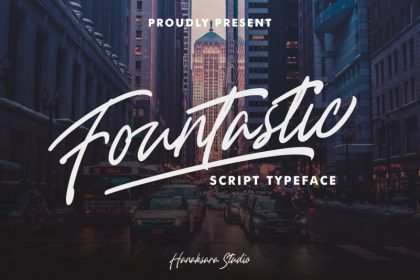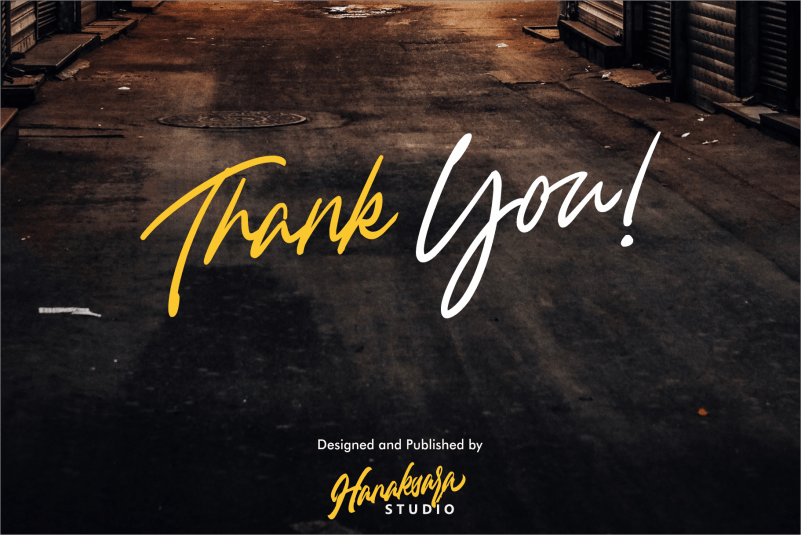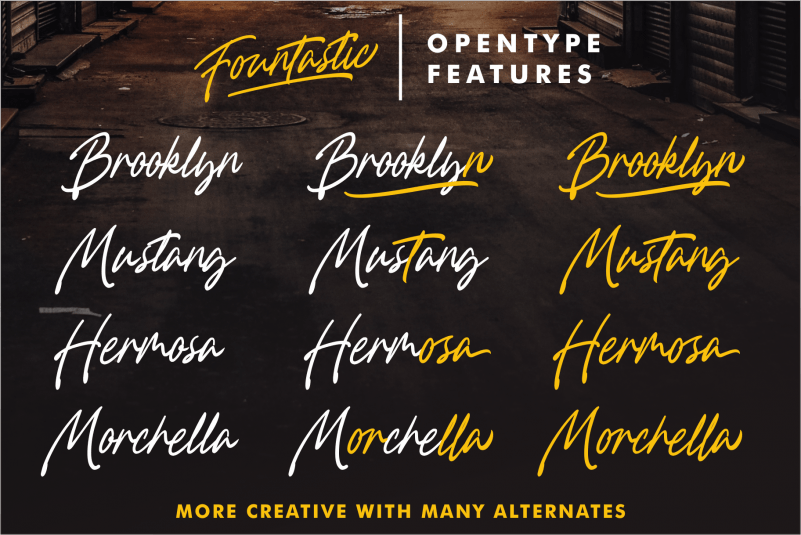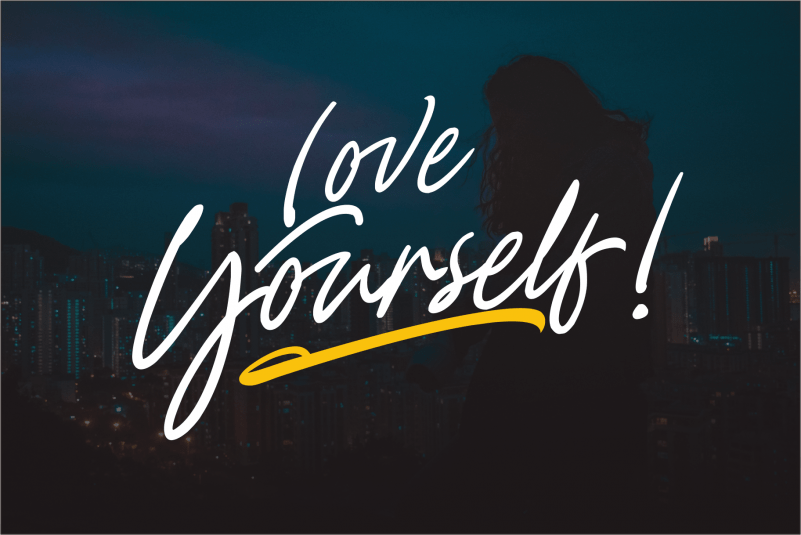
Fountastic Script Font
Say hello to our latest product Fountastic Script Font”. Fountastic Script is a modern casual script typeface, made by hand and similiar with a manual handwriting or lettering. So, you can easily make lettering with just a font!
Fountastic Font perfect for branding, logos, packaging, tshirt design, poster, wedding details, name card, or something that requires casual impression
In premium version was included with dozens of ligatures to keep the maximum impression of handwriting. And we also added several sets of stylistic alternate, swashes and underlines. To access underline you can easily type: Number + double underscore in the middle of sentence.